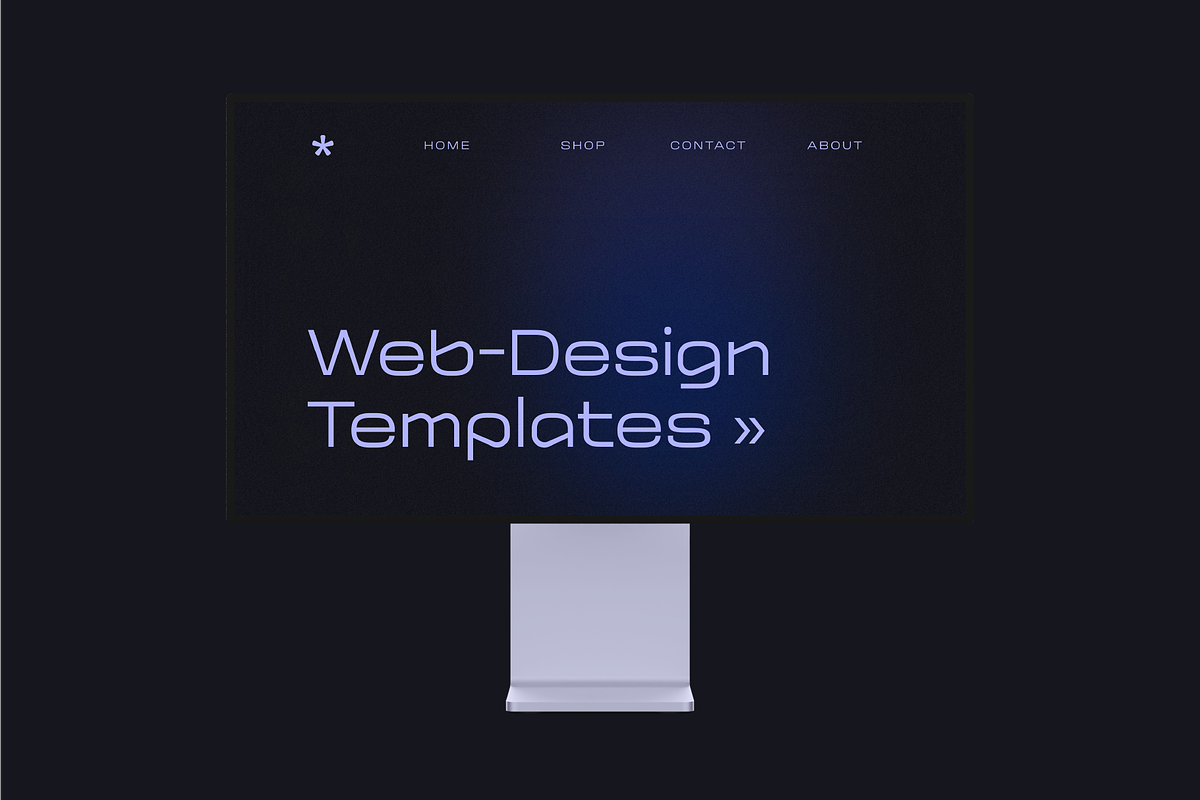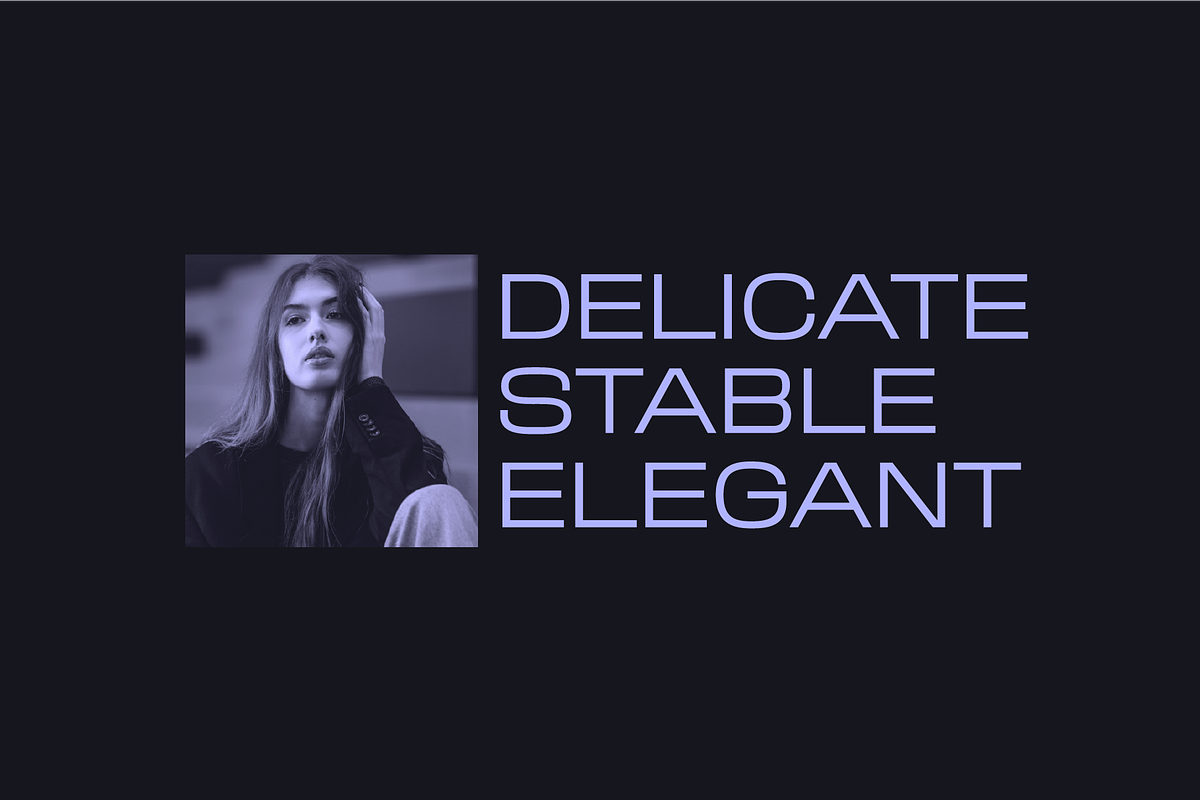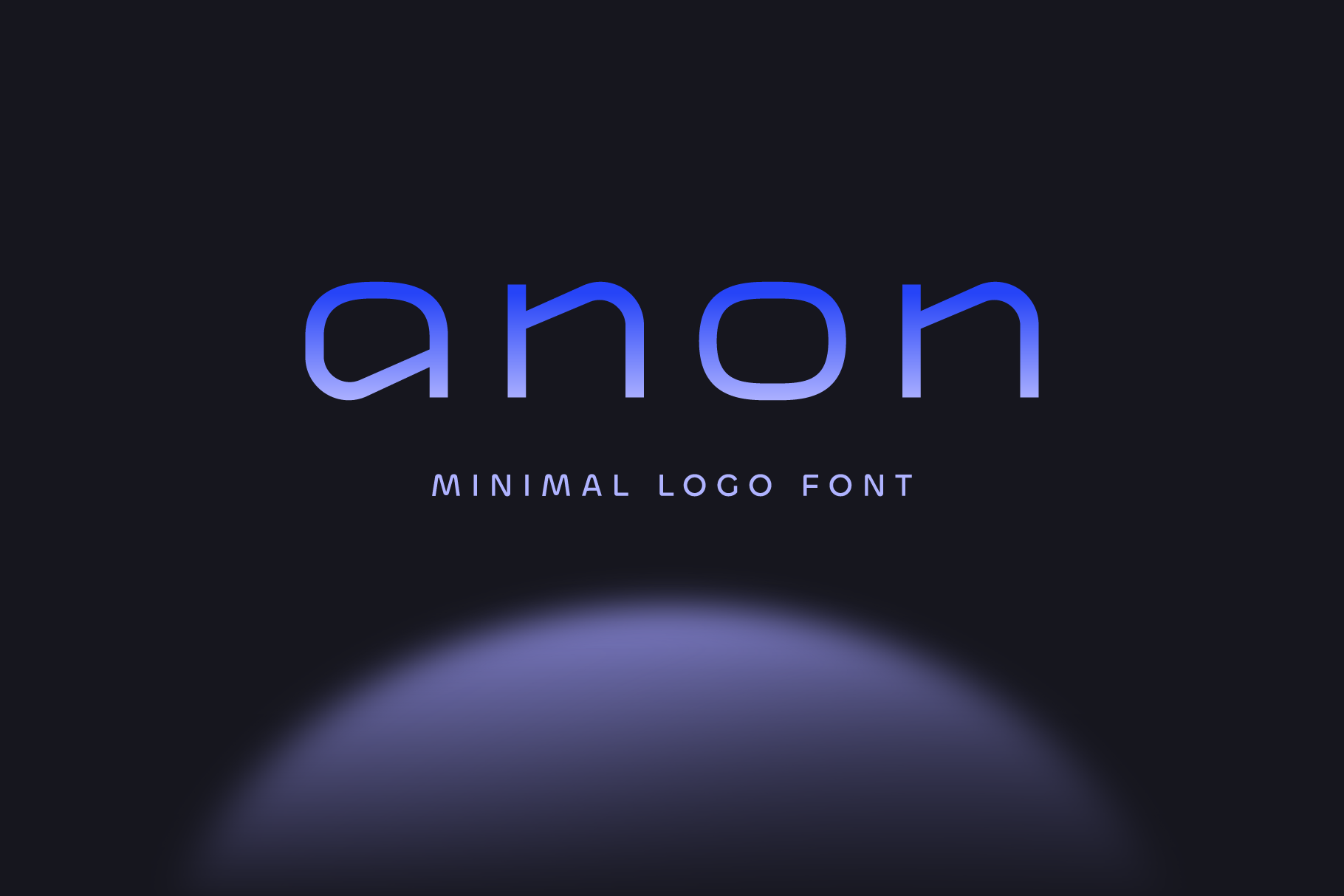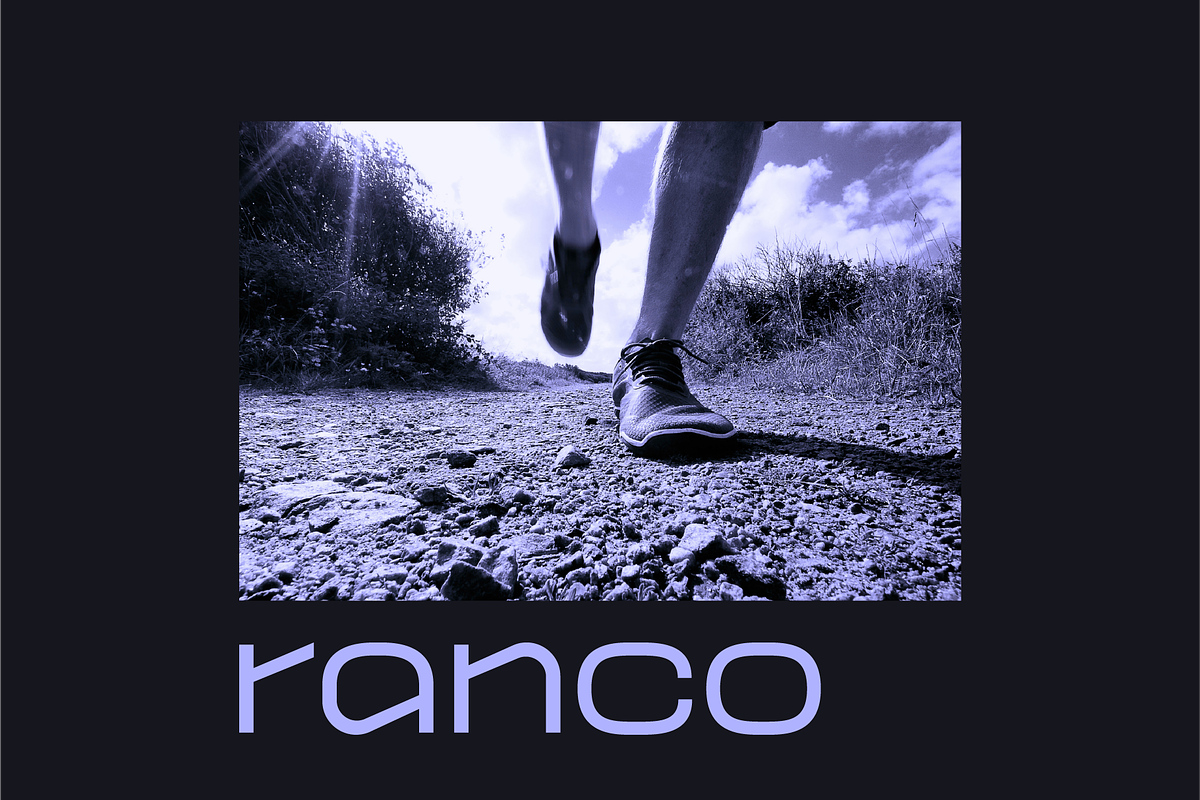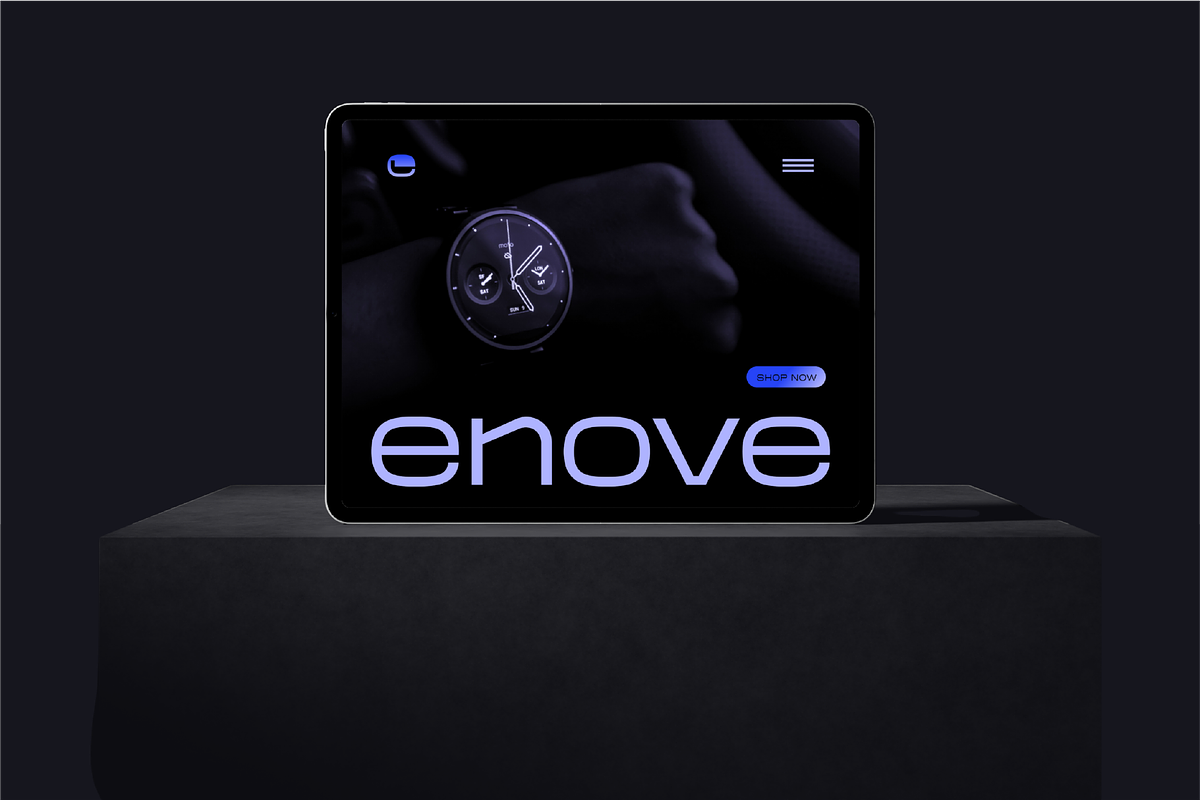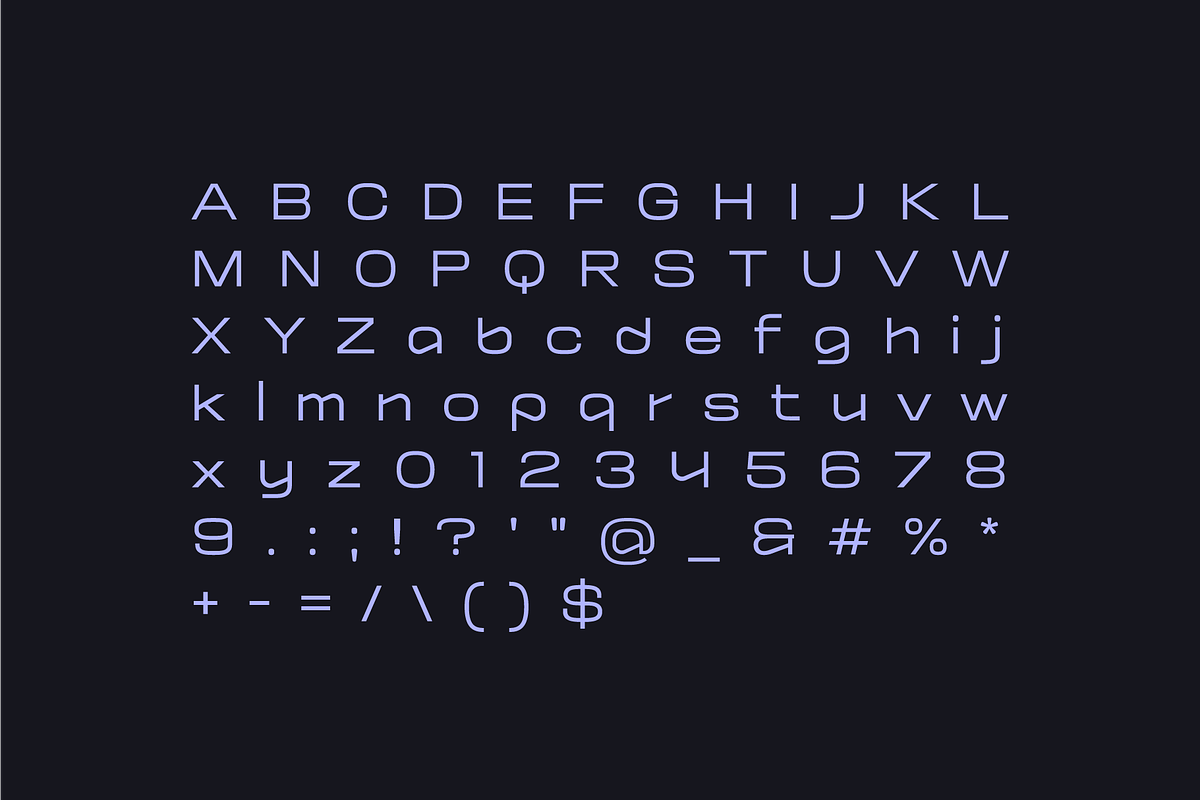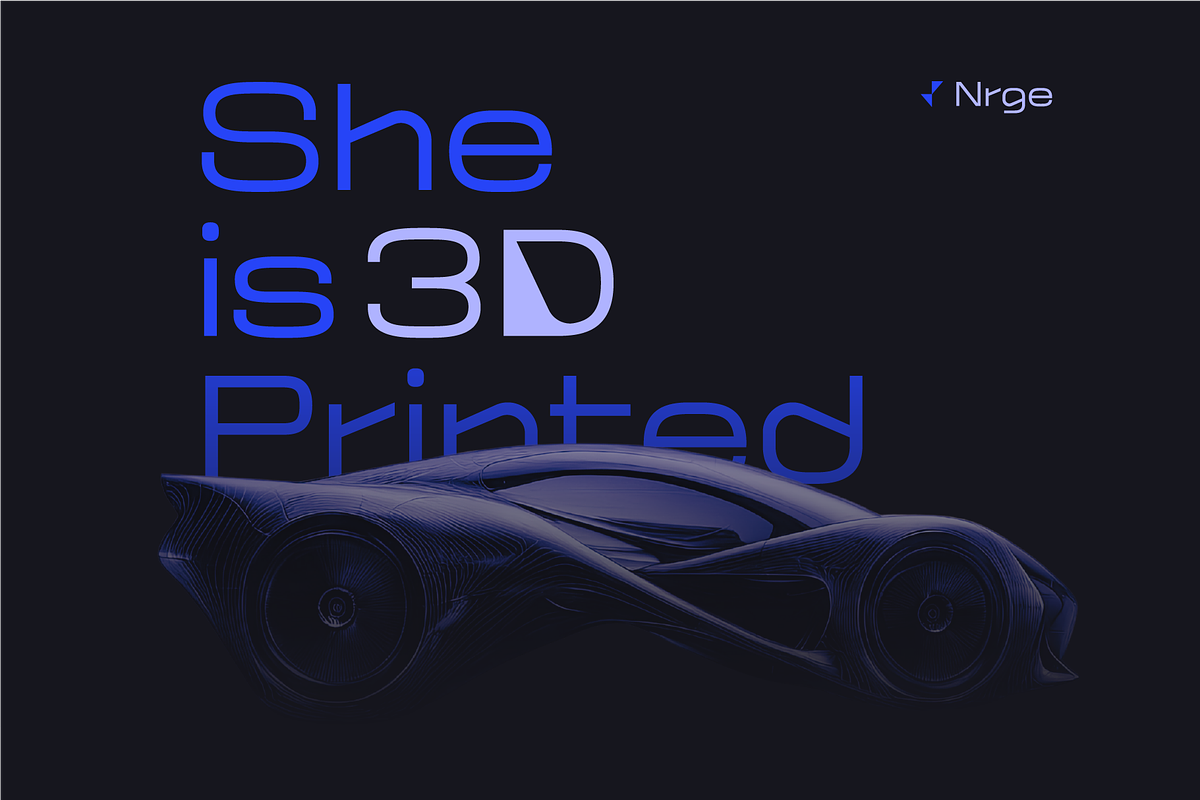
Anon-Futuristic Logo Display Font
Anon is a futuristic yet elegant logo and display font designed for modern brands that value clarity, sophistication, and restraint. Its smooth curves, open forms, and balanced geometry create a refined techno-minimal aesthetic. Anon excels in logos, headlines, UI elements, and digital interfaces where precision and visual confidence matter. The font’s soft futuristic character makes it ideal for technology, fashion, lifestyle, and creative brands seeking a distinctive yet timeless voice.